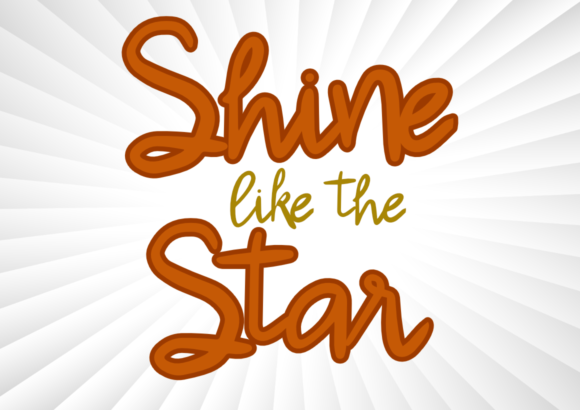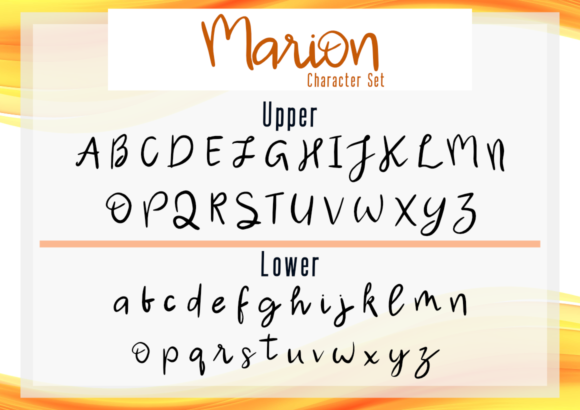
Marion Font
About Marion Font
Marion is a relaxed and casual handwritten font. It is perfect for logos, branding, invitations, stationary, wedding designs, social media posts and much more!